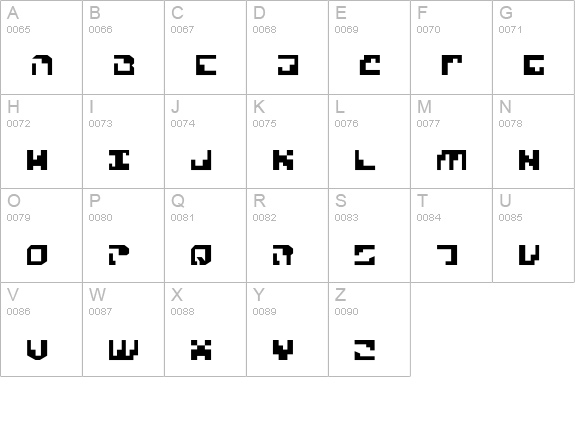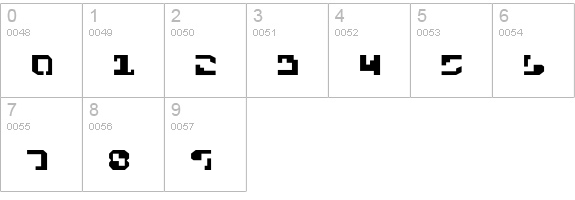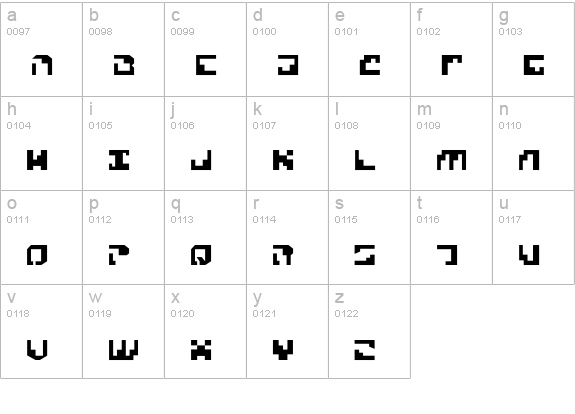
Malcorian Font Details
Introducing Malcorian font, a stunning and versatile typeface that is sure to elevate your design projects to the next level. With its elegant and modern style, Malcorian font is perfect for a wide range of applications, from branding and advertising to editorial design and more. Featuring a sleek and sophisticated look, Malcorian font is bound to make a lasting impression on any audience. Its clean lines and unique character shapes give it a distinctive and memorable appearance that will set your work apart from the rest. What's more, Malcorian font is available for free download at FontsMarket.com, making it easily accessible to anyone looking to enhance their creative projects with a touch of class and style. Don't miss out on this incredible opportunity to add Malcorian font to your font collection today!